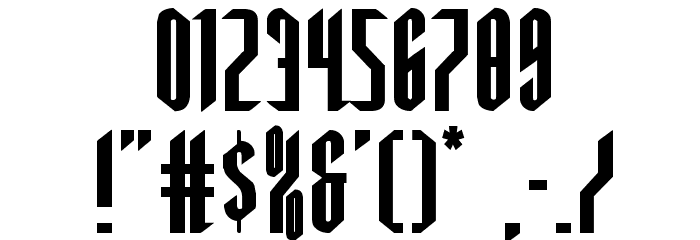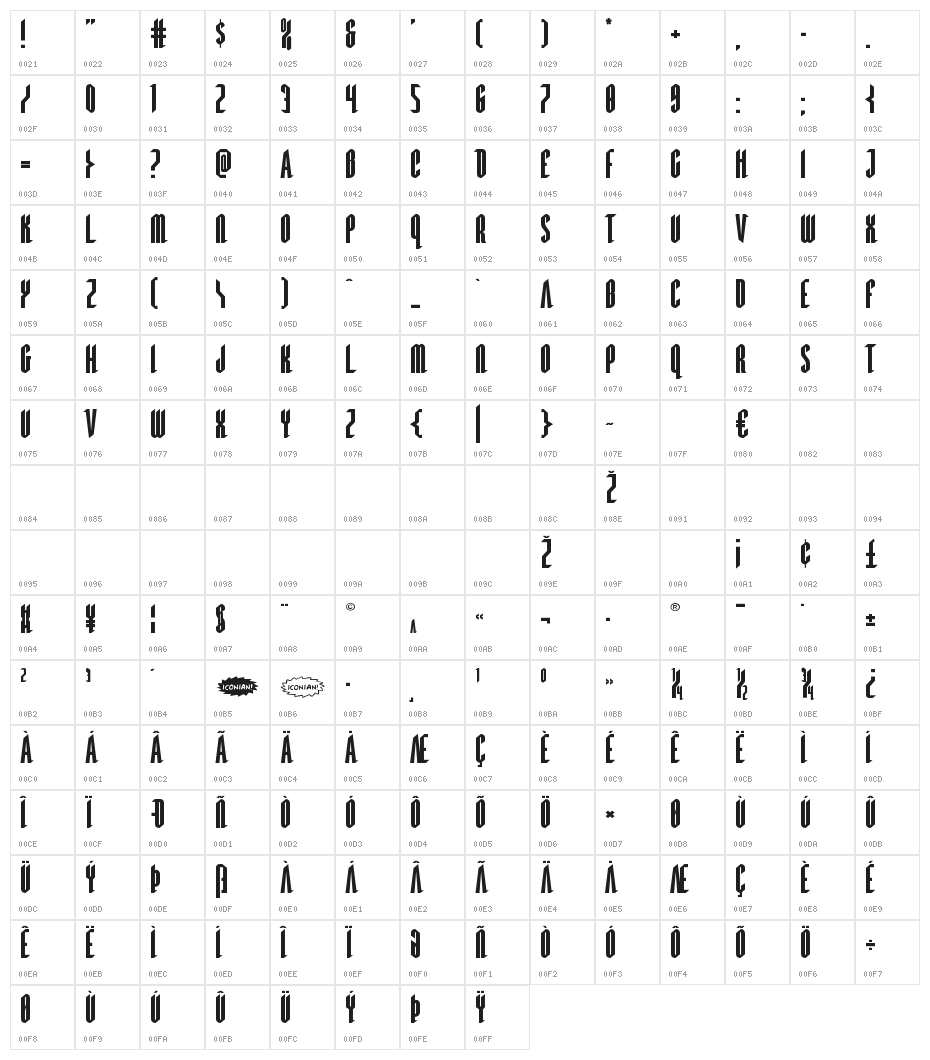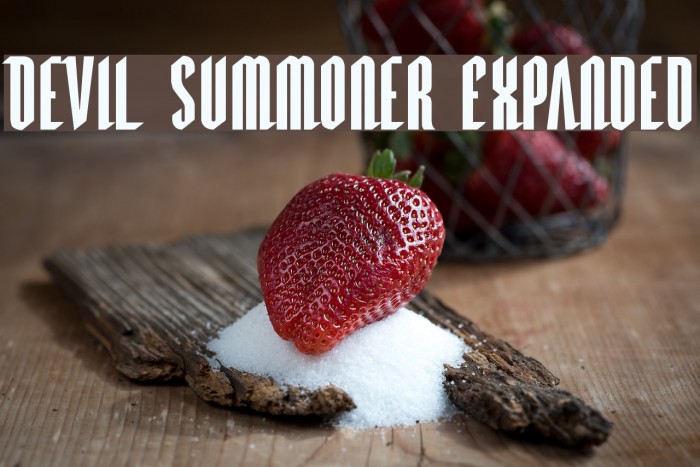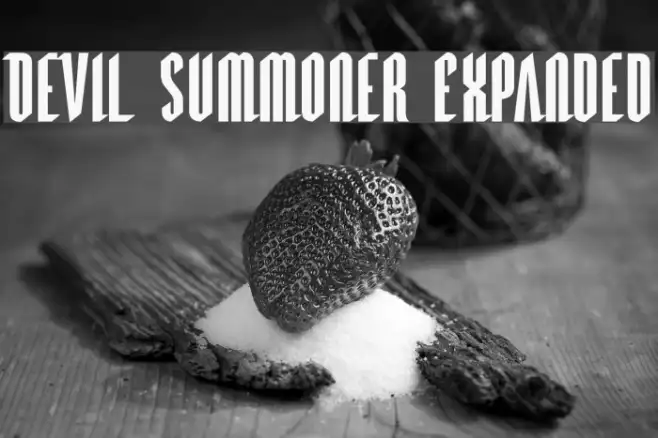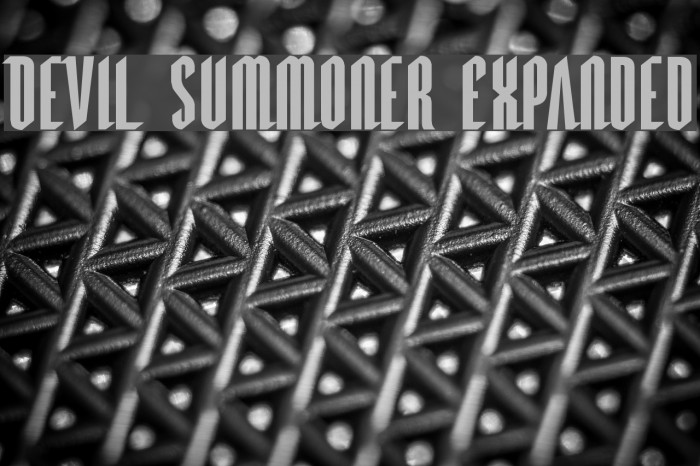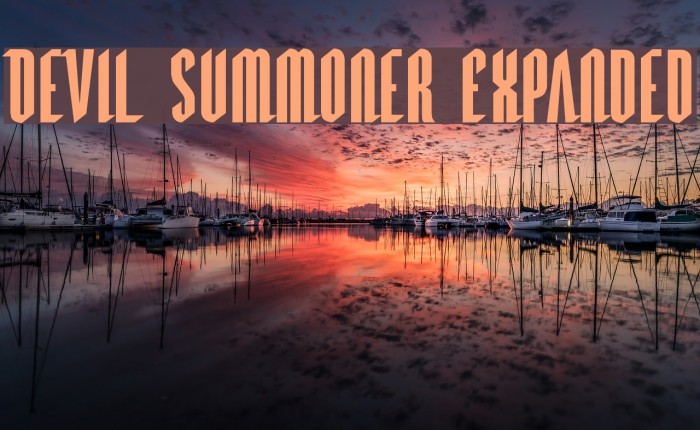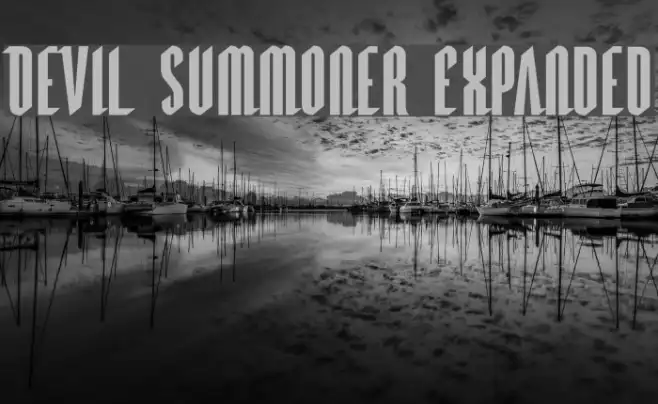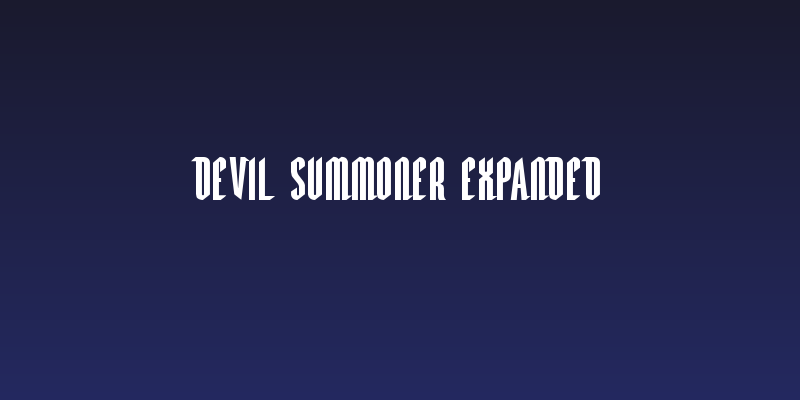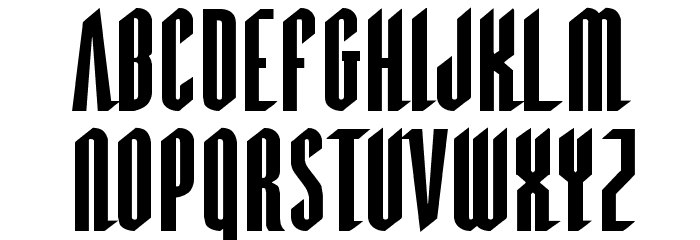
Devil Summoner Expanded Font
Devil Summoner Expanded Description
This font features a bold and striking design with sharp, angular edges and a gothic influence. The uppercase letters are tall and narrow, giving a sense of height and drama. The numbers and special characters maintain this bold aesthetic, ensuring consistency across all characters. The font's style is reminiscent of medieval or fantasy themes, making it ideal for projects that require a dramatic and impactful visual presence. Its unique character shapes and strong lines make it stand out, while the consistent width and spacing provide a cohesive look.
| Overall Style | Gothic, Dramatic |
| Proposed Projects | Ideal for fantasy-themed posters, video game titles, book covers, and branding that requires a bold statement. |